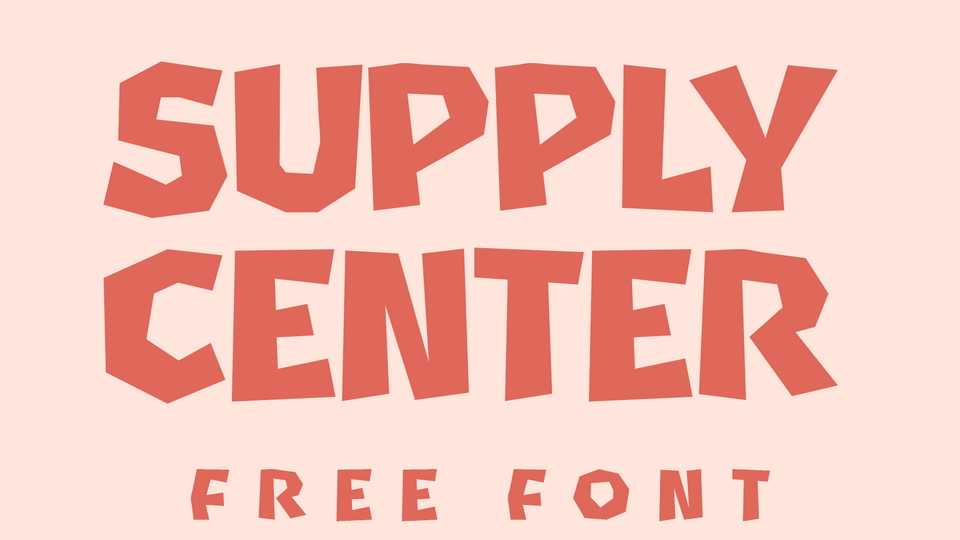
Download Supply Center font, a display typeface inspired by games and will bring an atmosphere of nostalgia and adventure. Supply Center font would be an ideal choice for any film, game, or adventure-themed design.
Designer: Niskala Huruf